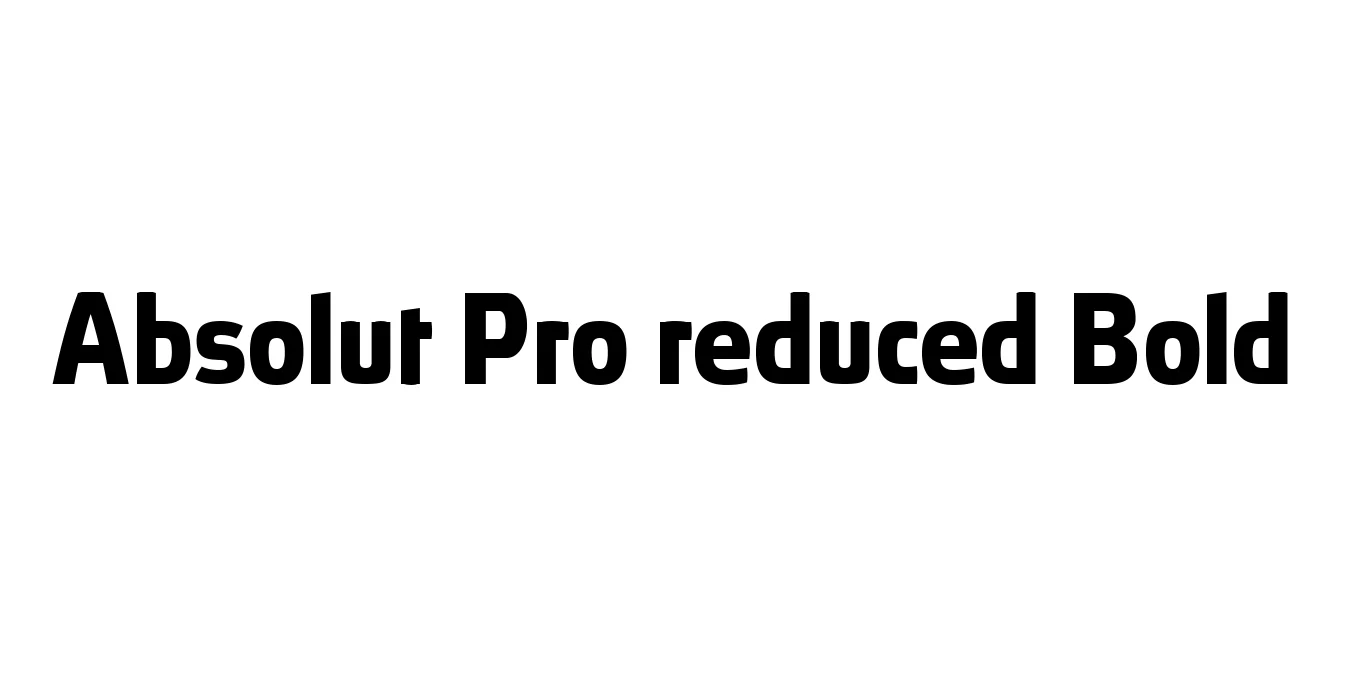
Absolut Pro reduced Bold
Designed by Ingo Preuss
| Category | Geometric Sans Serif |
| Designer | Ingo Preuss |
Absolut Pro reduced Bold is a sophisticated geometric sans-serif typeface designed by Ingo Preuss of PreussType. This specific variant belongs to the larger Absolut family, characterized by its precise construction and high-legibility standards. The 'reduced' version is often curated for specific use-cases, maintaining the robust structural integrity and modern aesthetic of the original Pro version while offering a more streamlined set of features for rapid deployment in professional design environments.
The design philosophy behind Absolut Pro reduced Bold blends industrial modernism with technical precision. Its bold weight is particularly striking, featuring clean lines and open apertures that ensure clarity across both digital screens and high-resolution print. It serves as an excellent bridge between the rigid geometry of 1920s modernism and the functional requirements of contemporary typography, making it a versatile tool for designers seeking a balance of authority and elegance.
Absolut Pro reduced Bold Best Uses
Creating strong, memorable logos and corporate identity systems that require a modern touch.
Highly legible headlines and navigation elements for technical or corporate websites.
Impactful titles and pull quotes in magazines and digital publications.
High-contrast text for posters, billboards, and social media promotional graphics.